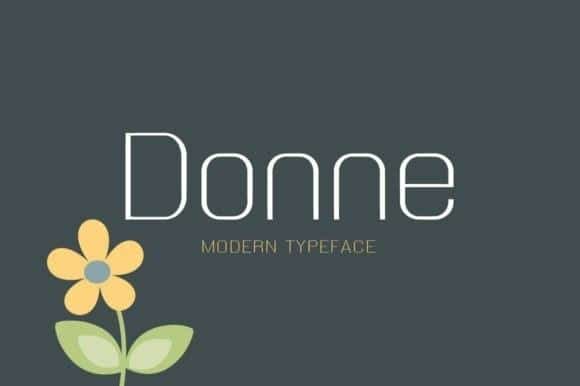
Donne Modern Sans Font
Donne Font is a romantic, timeless, and minimalistic all caps sans serif font that looks stunning in every context.
Donne is a modern display font with a classic touch. It will turn any design project into a stand out!
It’s perfect for magazine layouts, invitations, headers, or even large-scale artwork.
• Designer: Instagram Fonts